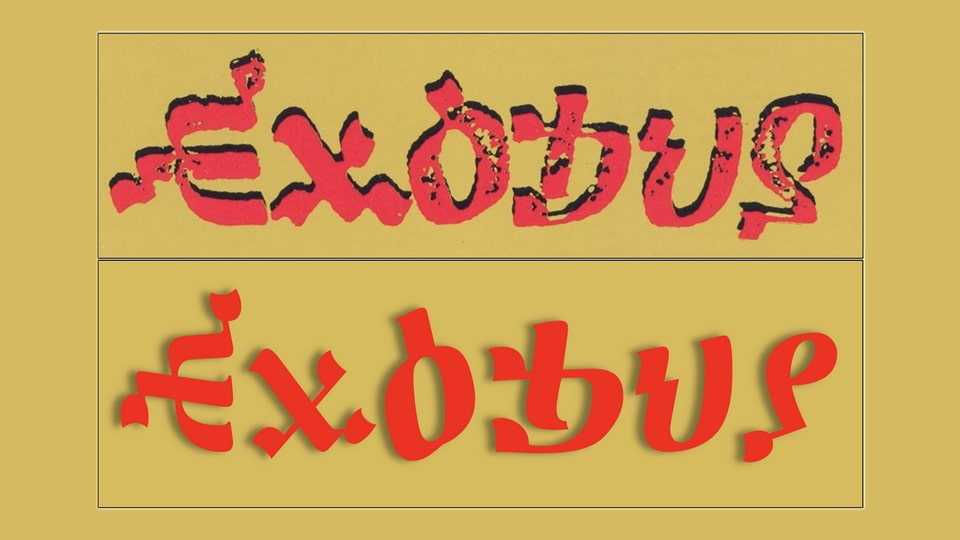
Download Exodus font, an approximation of the typeface used on the cover of Bob Marley’s 1977 Exodus album, created in celebration with the release of the 2024 film “One Love”.